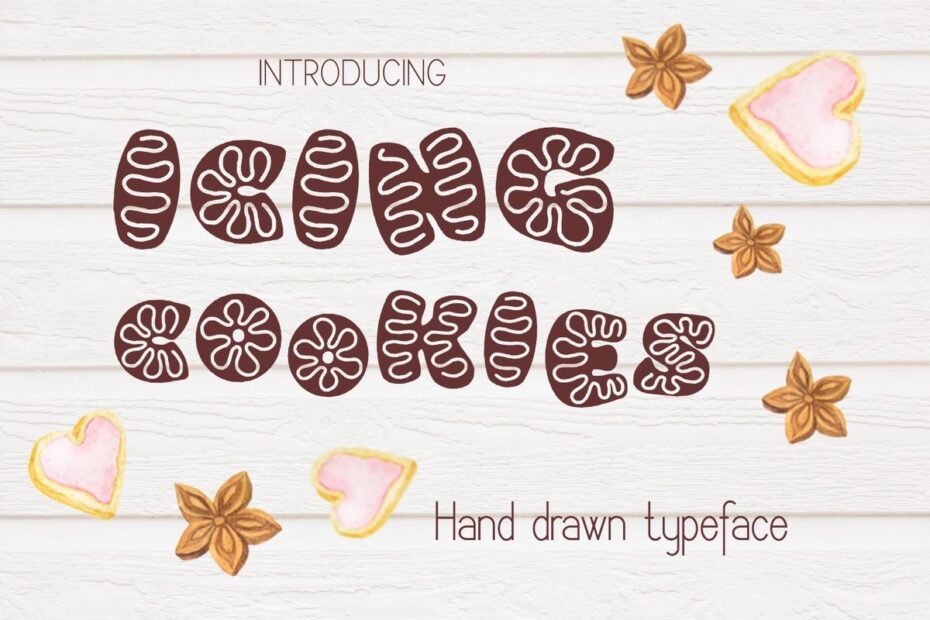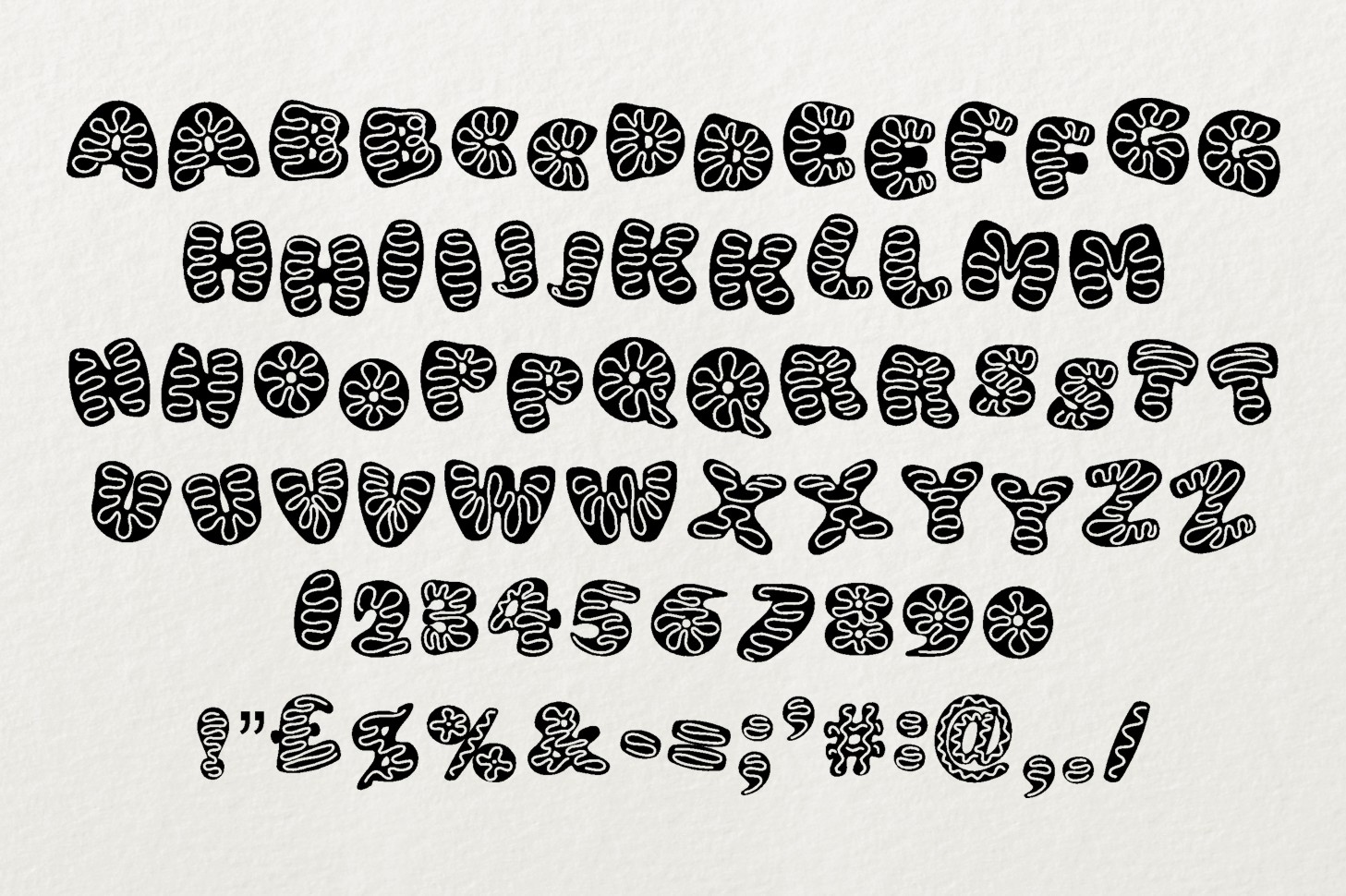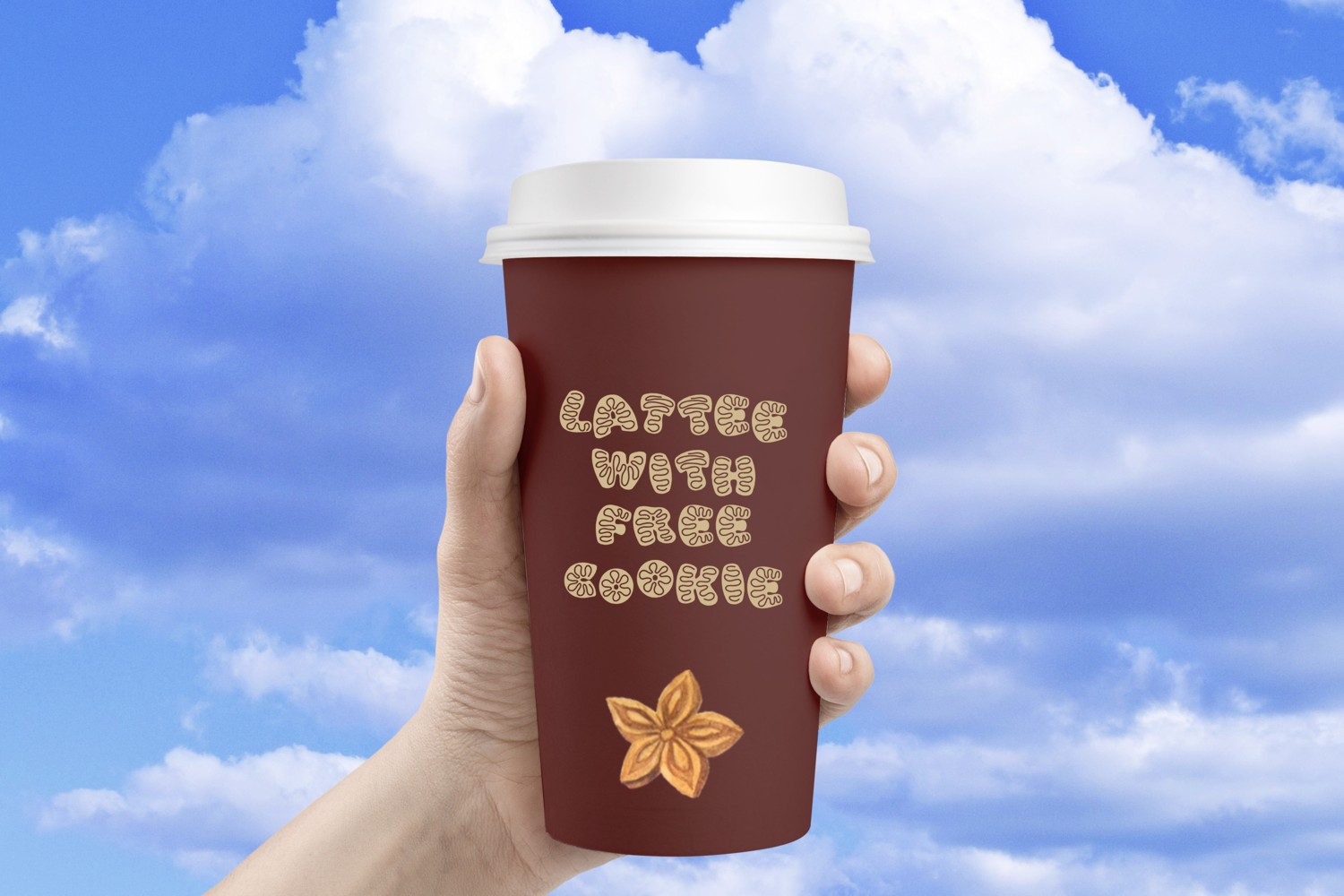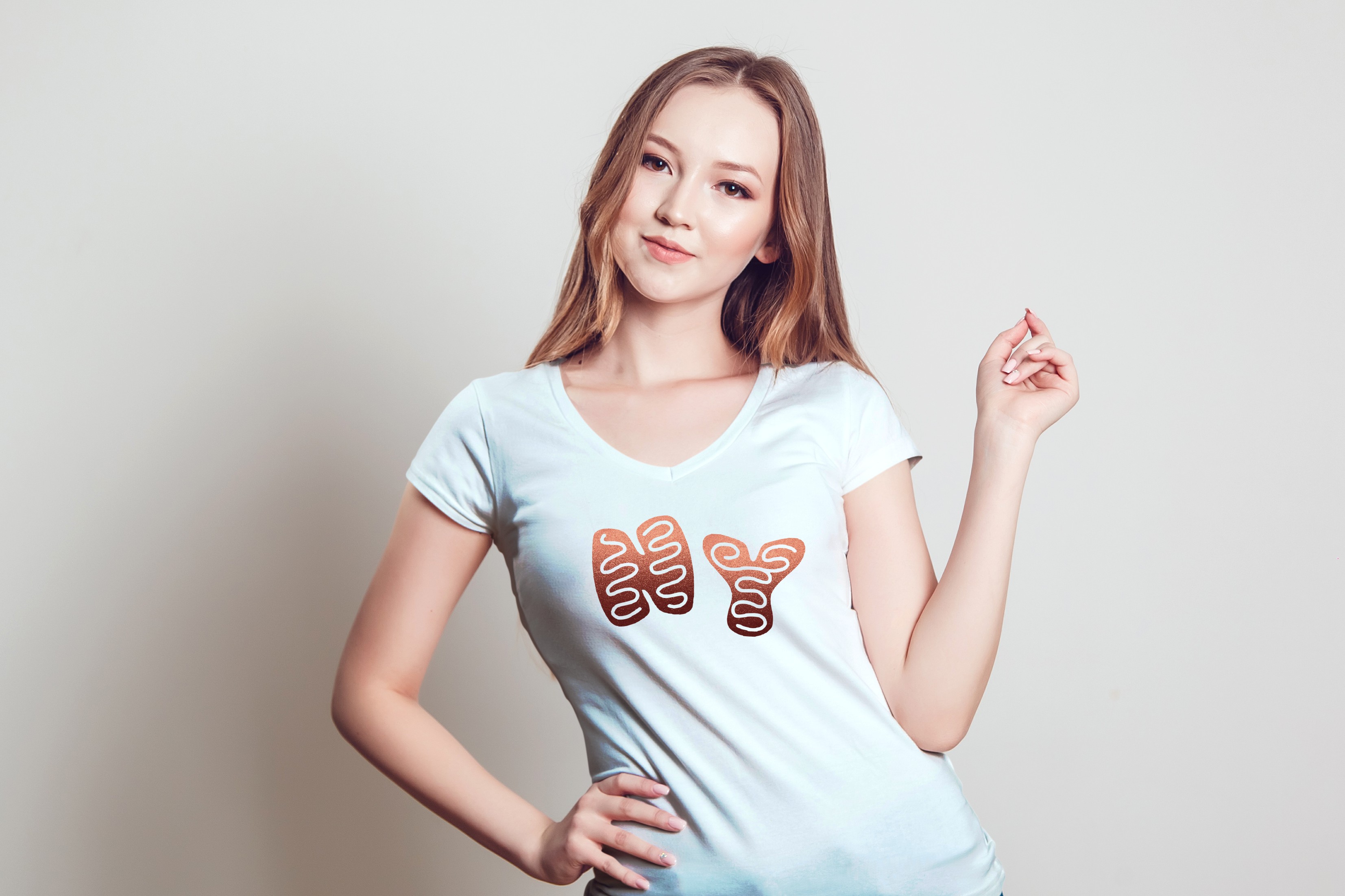
The Sweetest Design Solution: Icing Cookies Font
Have you ever stared at a blank canvas, trying to come up with the perfect title for your next project? The blank space seems to stare back, taunting you with its emptiness. But then, it happens – a burst of creativity strikes, and the words start flowing. You’ve got a vision, and it’s time to bring it to life.
That’s where Icing Cookies Font comes in – a versatile and charming font perfect for adding a touch of whimsy to your designs. Whether you’re creating a logo, poster, or flyer, this font is sure to catch the eye. With its playful, handwritten feel, Icing Cookies Font is a valuable asset for any designer looking to add a personal touch to their work.
Whether you’re a seasoned pro or just starting out, Icing Cookies Font is a must-have for any design project that requires a little extra flair. So why settle for boring, generic fonts when you can add a dash of sweetness to your designs with Icing Cookies Font?
Icing Cookies Font Key Features
- Font Family: Icing Cookies – a unique, handwritten font designed to resemble icing on cookies.
- Unique Characteristics: The font features intricate, swirly patterns and decorative flourishes, giving it a playful and whimsical feel.
Icing Cookies Font Review
I’ve had the chance to work with the Icing Cookies Font, and here’s my honest take on it.
- The font’s playful and whimsical design is perfect for baking and cooking-related projects.
- The characters are well-formed and easy to read, even at smaller sizes.
- The font’s versatility allows it to be used in a variety of contexts, from social media to print materials.
- The font’s design can be overly sweet for some users, which may not be suitable for more professional or formal projects.
- The font’s character set is limited, which may not be ideal for users who need to work with a wide range of characters.
Overall, the Icing Cookies Font is a fun and charming addition to any design project. While it may not be the best choice for every situation, it’s perfect for baking and cooking-related projects that need a playful touch.
The Icing Cookies Font is perfect for creating playful and whimsical designs for:
– Bakery and dessert branding
– Children’s party invitations and decorations
– Food blogs and recipe websites
– Whimsical wedding invitations and decorations
To get the most out of the Icing Cookies Font, try:
– Combining it with other playful fonts for a unique look
– Using it in bold and bright colors to add visual interest
– Experimenting with different font sizes and styles to create a custom look
Alternatives to Icing Cookies Font for Designers
1. Sweet Treats Font
Sweet Treats Font is a whimsical, hand-drawn font that is perfect for adding a touch of sweetness to your designs. It’s ideal for use in bakeries, cafes, and food-related businesses. Sweet Treats Font is more playful and informal compared to Icing Cookies Font, making it a great choice for social media graphics, flyers, and other promotional materials.
2. Candy Script Font
Candy Script Font is a modern, cursive font that is designed to resemble handwritten script. It’s perfect for use in packaging design, advertising, and editorial content. Compared to Icing Cookies Font, Candy Script Font is more elegant and sophisticated, making it a great choice for high-end brands and luxury products.
Q: Can I customize the Icing Cookies Font to fit my specific design needs?
Yes, the Icing Cookies Font is a highly customizable font that supports a wide range of OpenType features, including ligatures, swashes, and ornaments. You can also use font editing software to customize the font to fit your specific design needs.